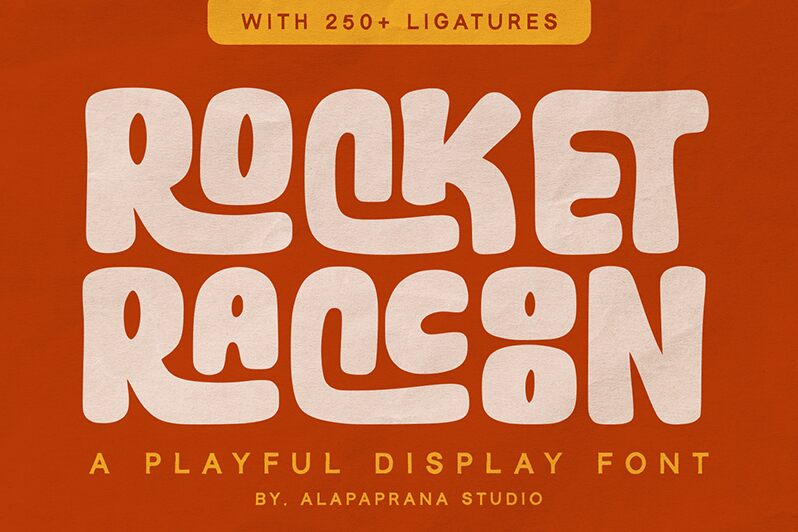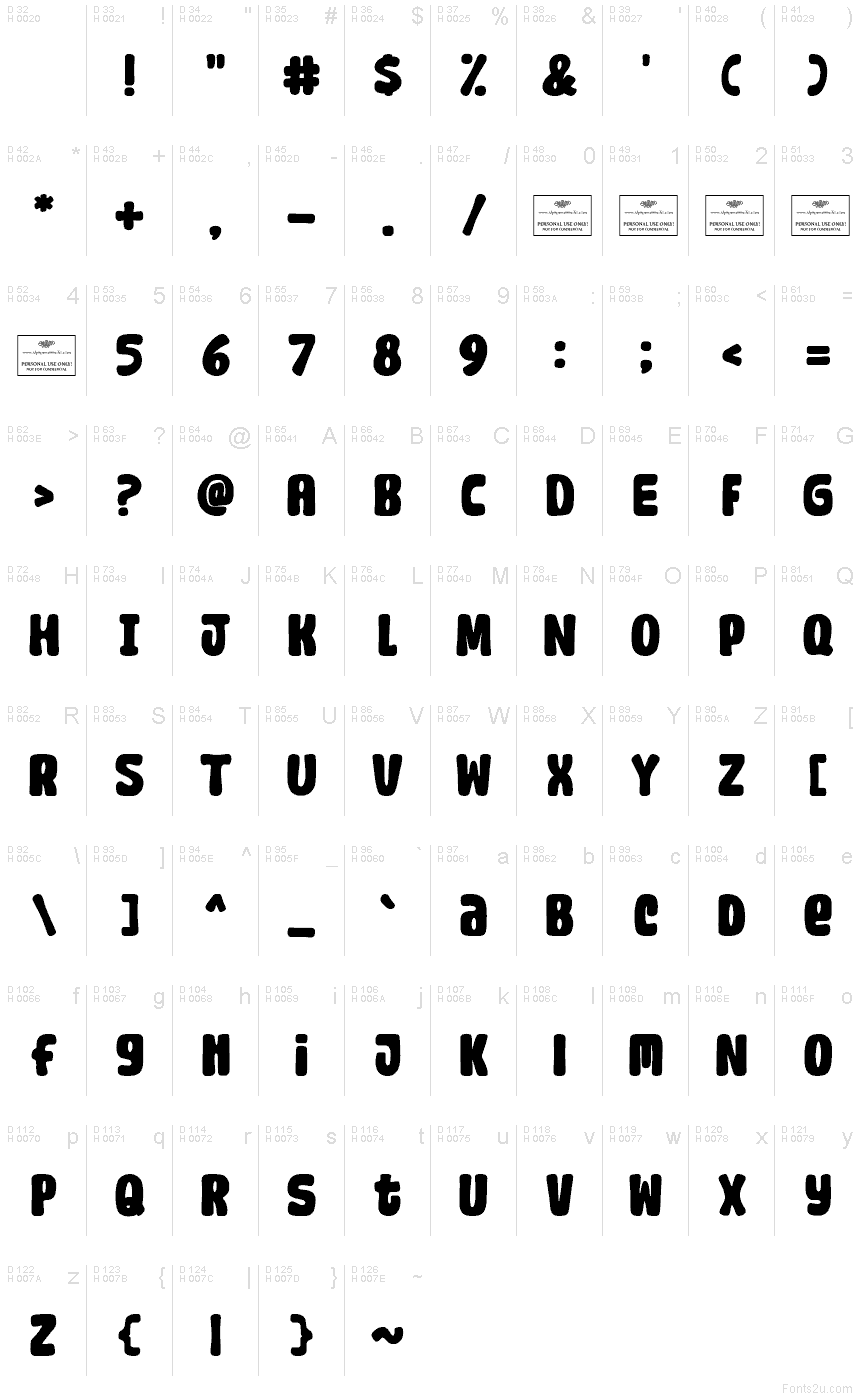
Rocket Raccoon Free Regular
Rocket Raccoon font by Alpaprana Studio is a free cartoon display typeface with big, blobby letters that feel soft to the touch—like inked marshmallows. The strokes swell and tuck in playful ways, giving headlines a buoyant bounce and steady rhythm that stays readable even at a glance. It’s cheerful without getting noisy, so your message lands with a grin instead of a shout.
Using Rocket Raccoon, titles pop on kids’ books, birthday invites, snack packaging, comic panels, classroom posters, YouTube thumbnails, and mobile game screens. The generous forms make short words feel chunky and confident, while the rounded finish keeps the tone friendly. Set it large to let the curves breathe, and pair this free font with a simple geometric sans for captions to keep layouts crisp.